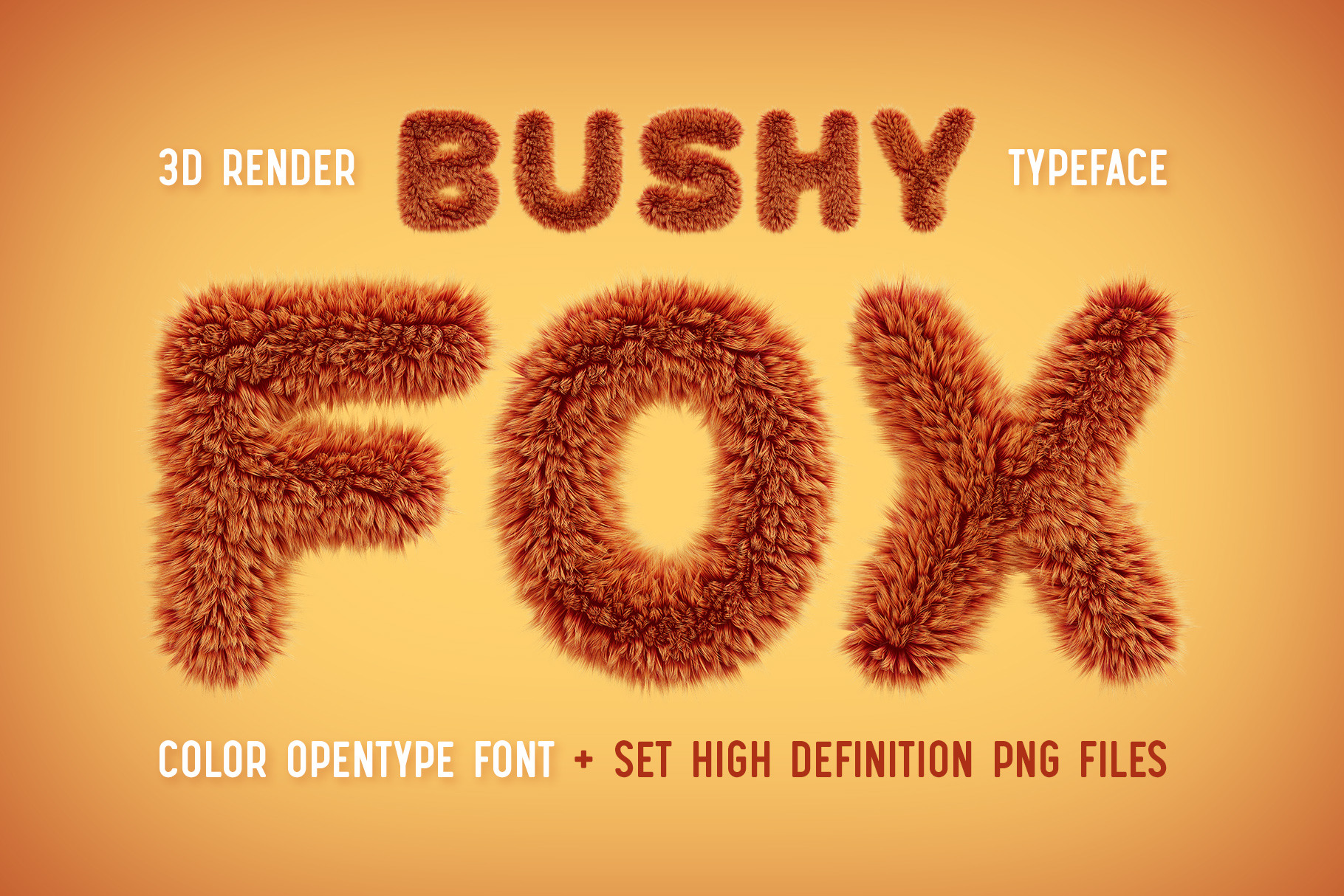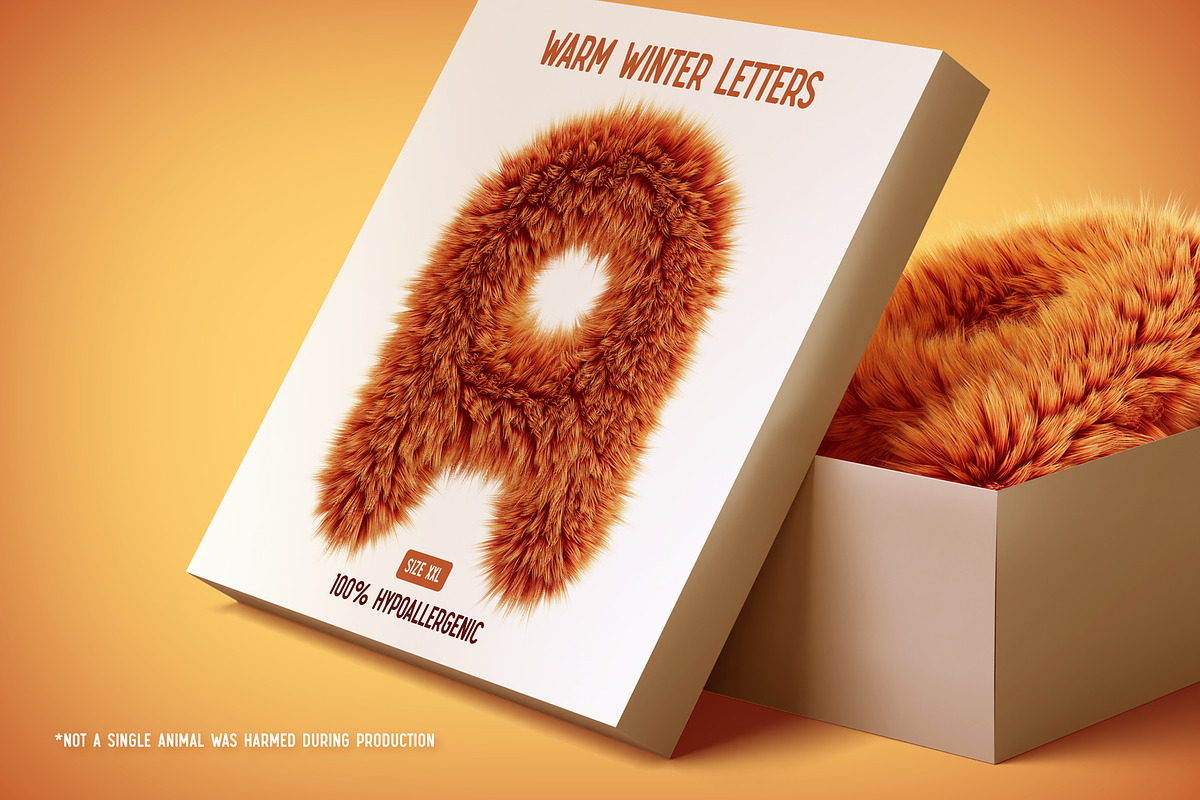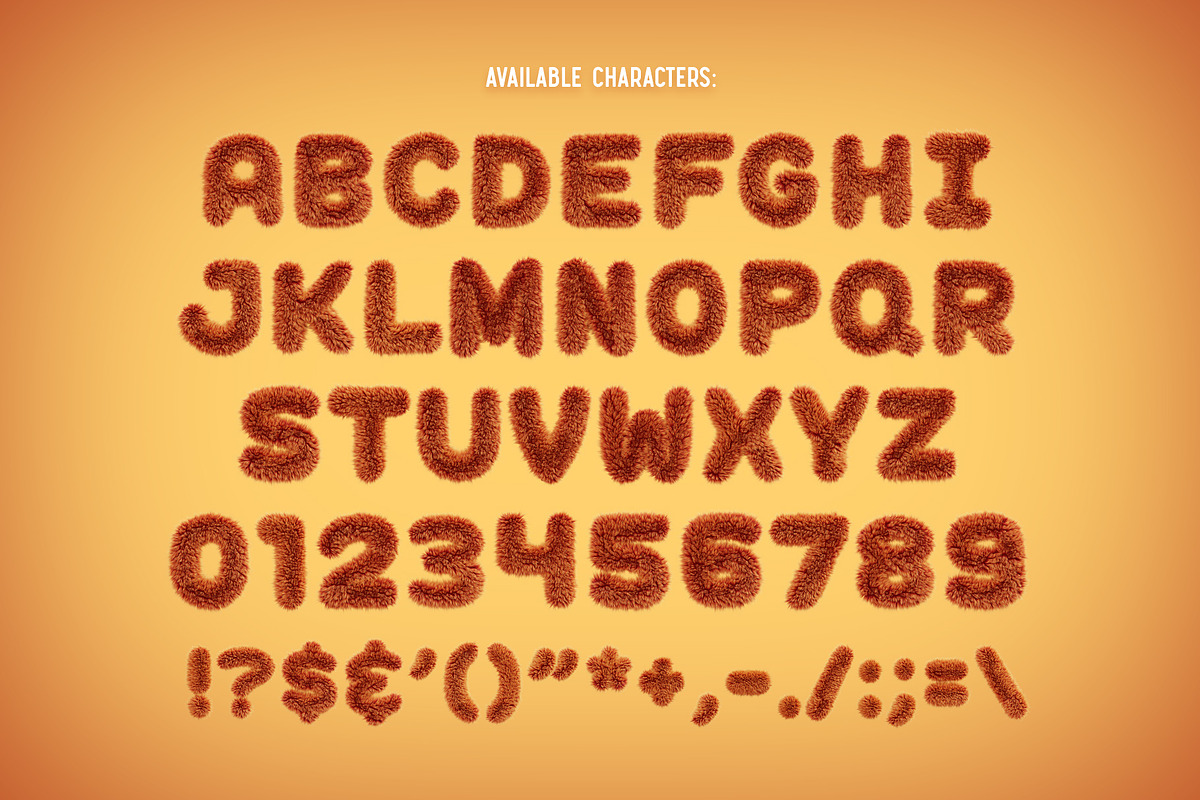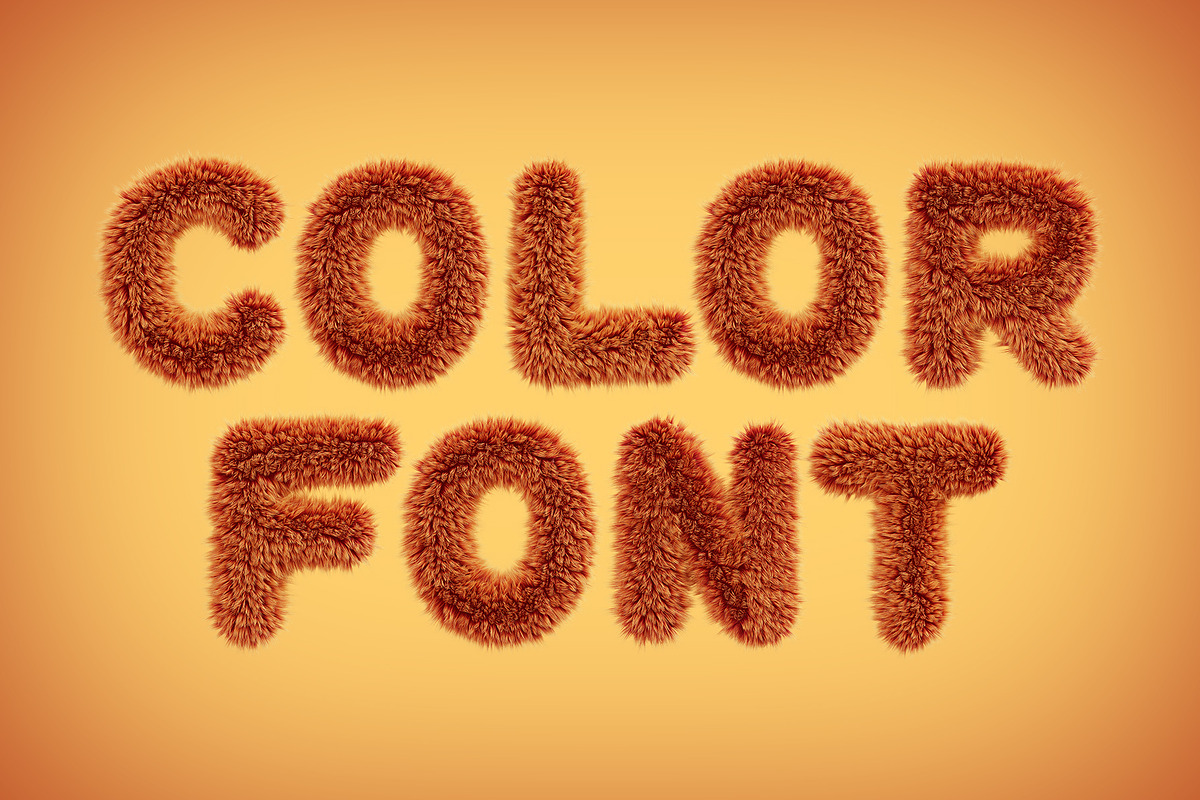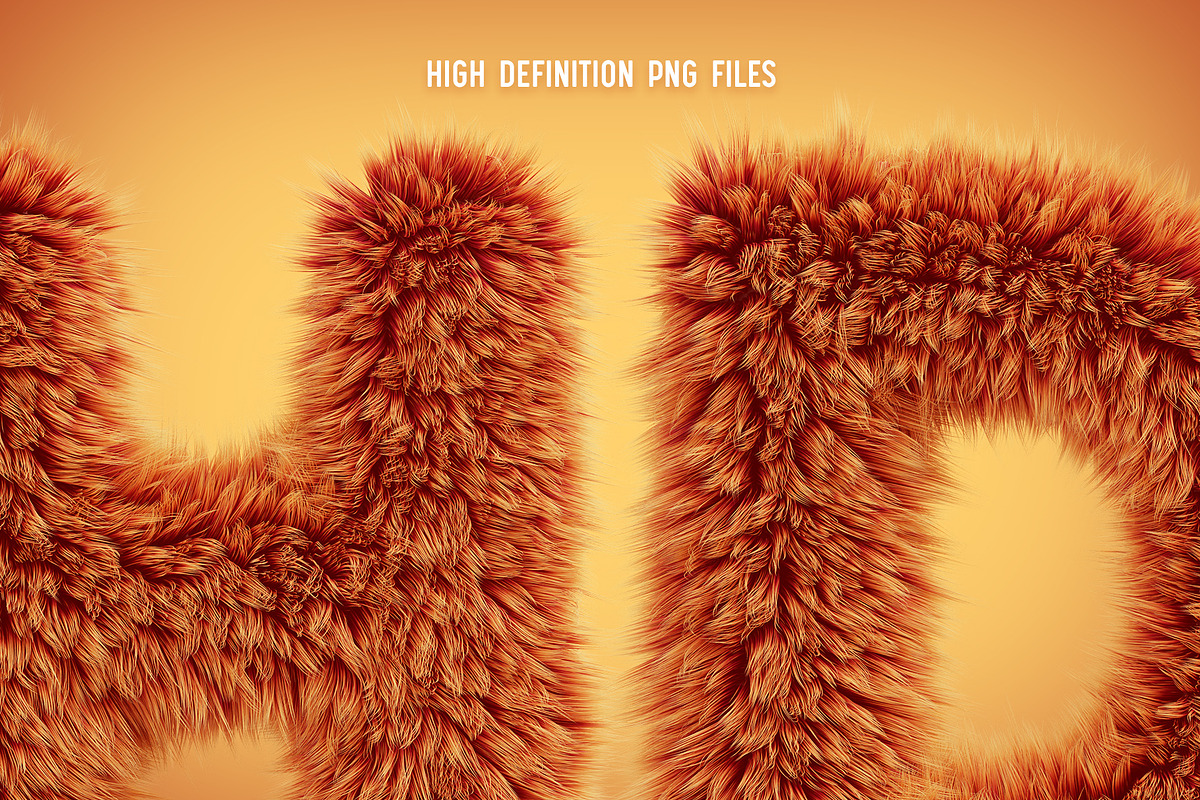
Bushy Fox color font
Hello! Presenting a funny font set – Bushy Fox. It's a 3d rendered high quality typeface with a fluffy fur shape. First of all it's a color bitmap OpenType-SVG font that can be used as a usual OTF font. Also a set of full resolution PNG files with transparent background is included (Average resolution is 7+ megapixels)